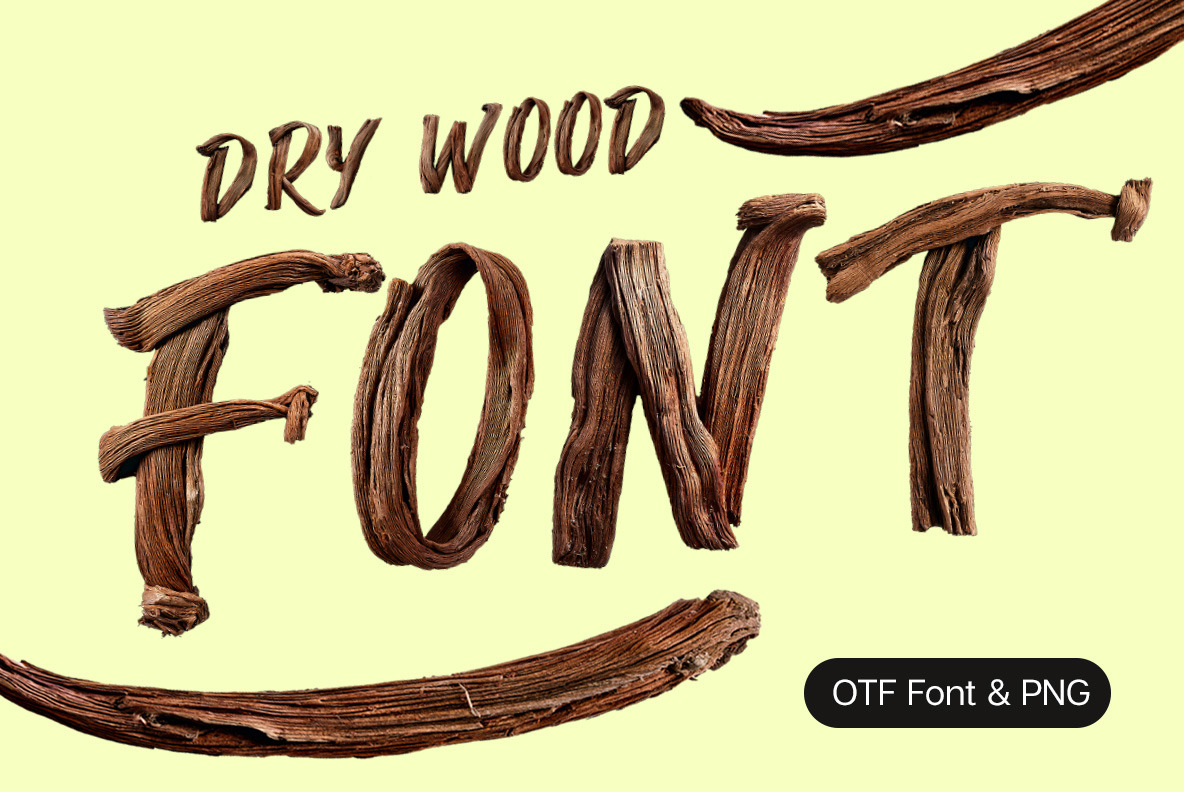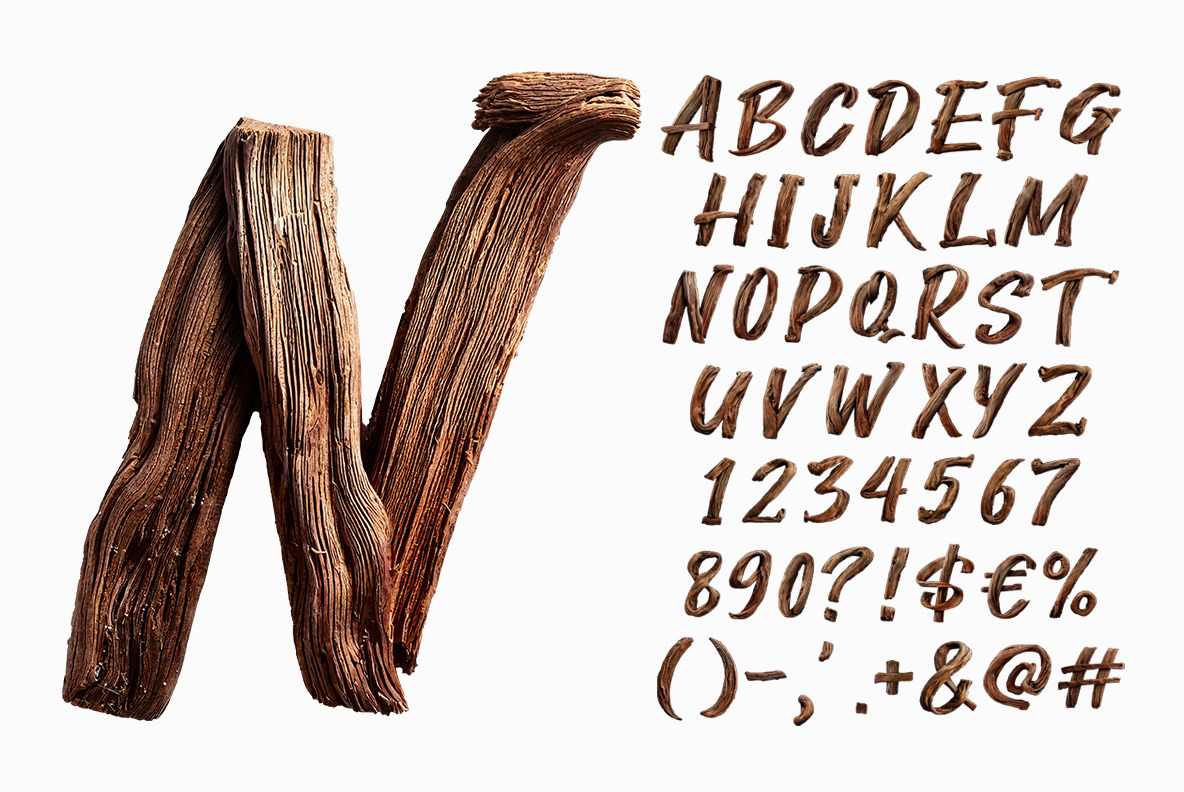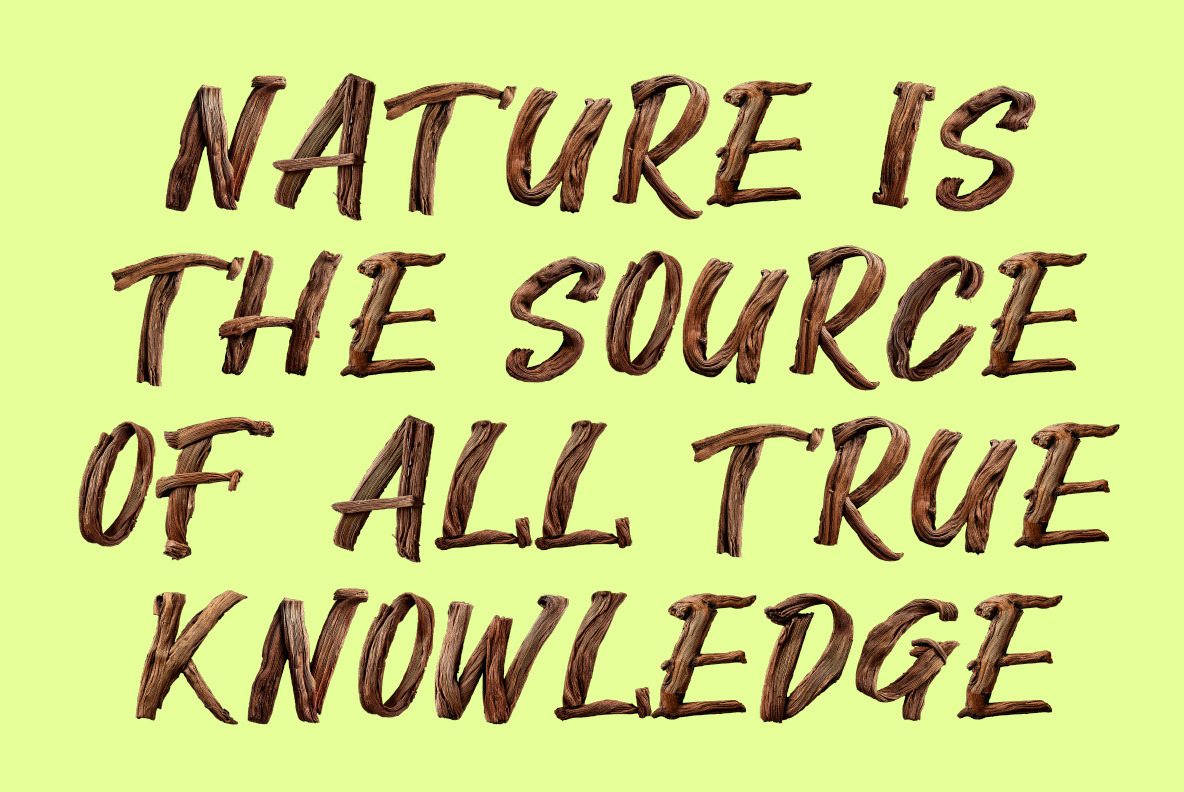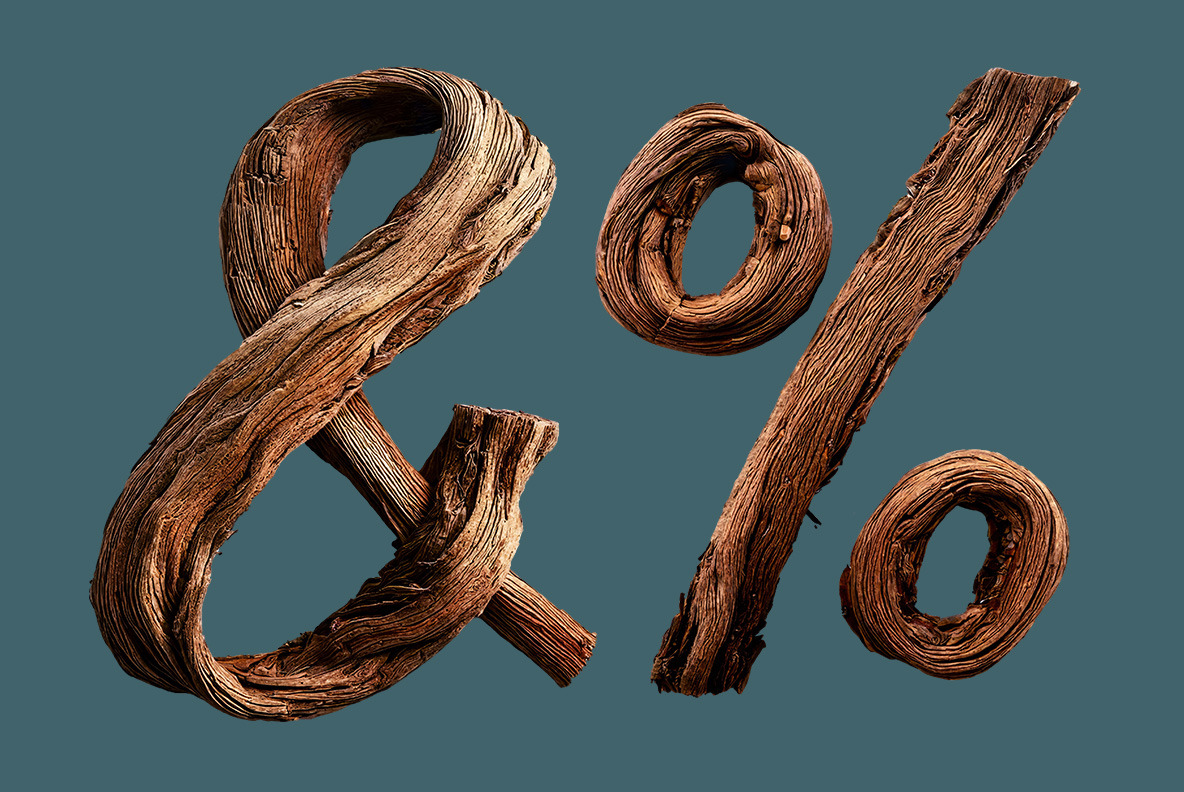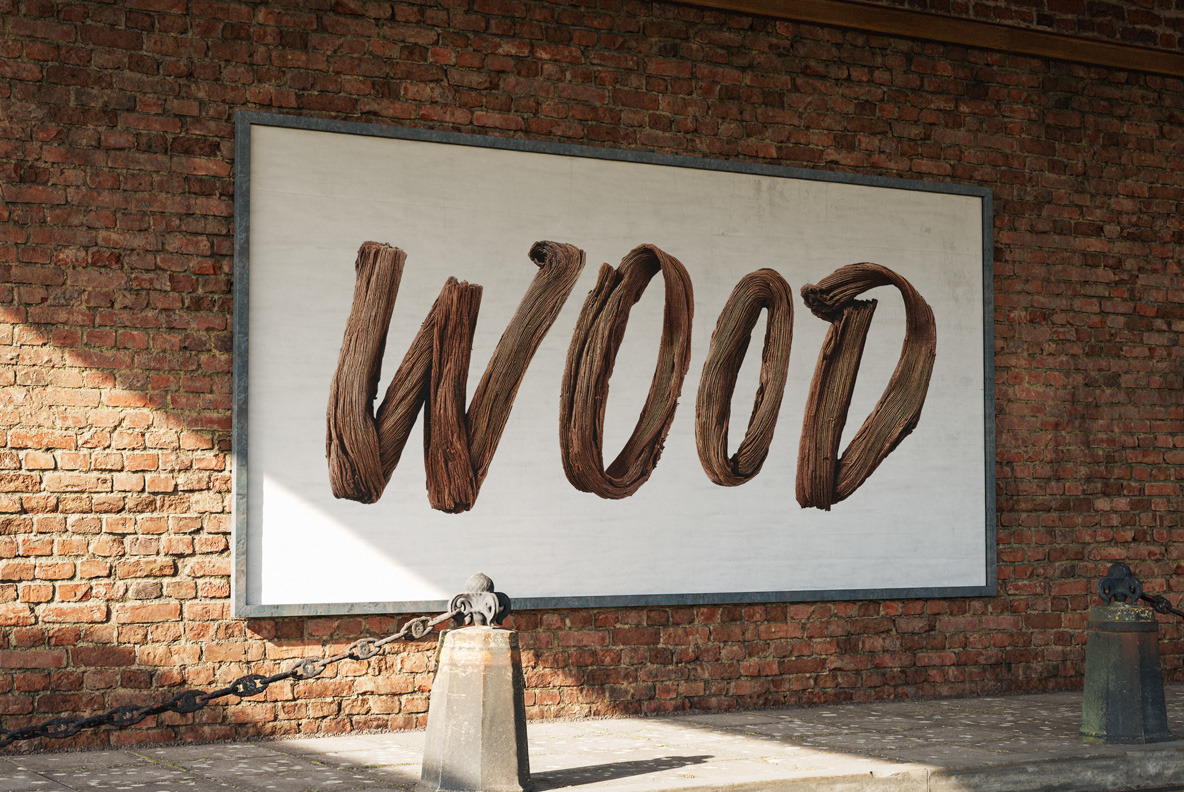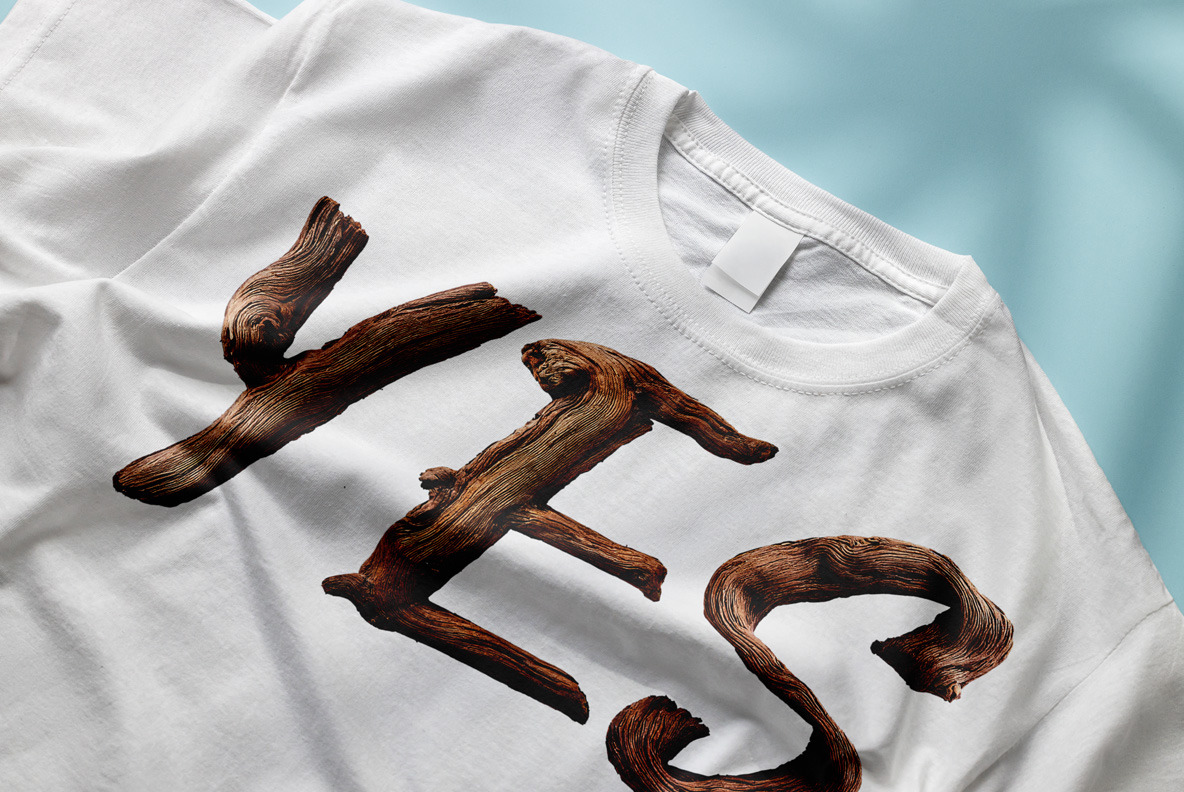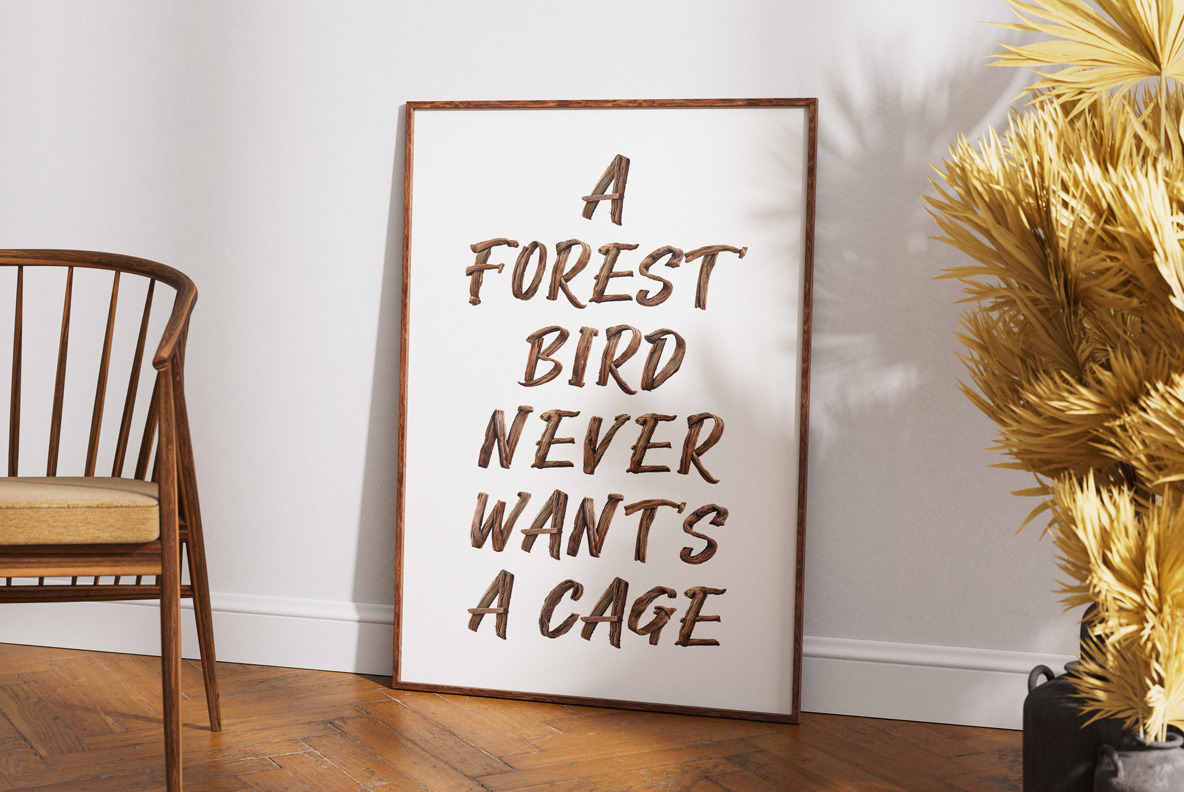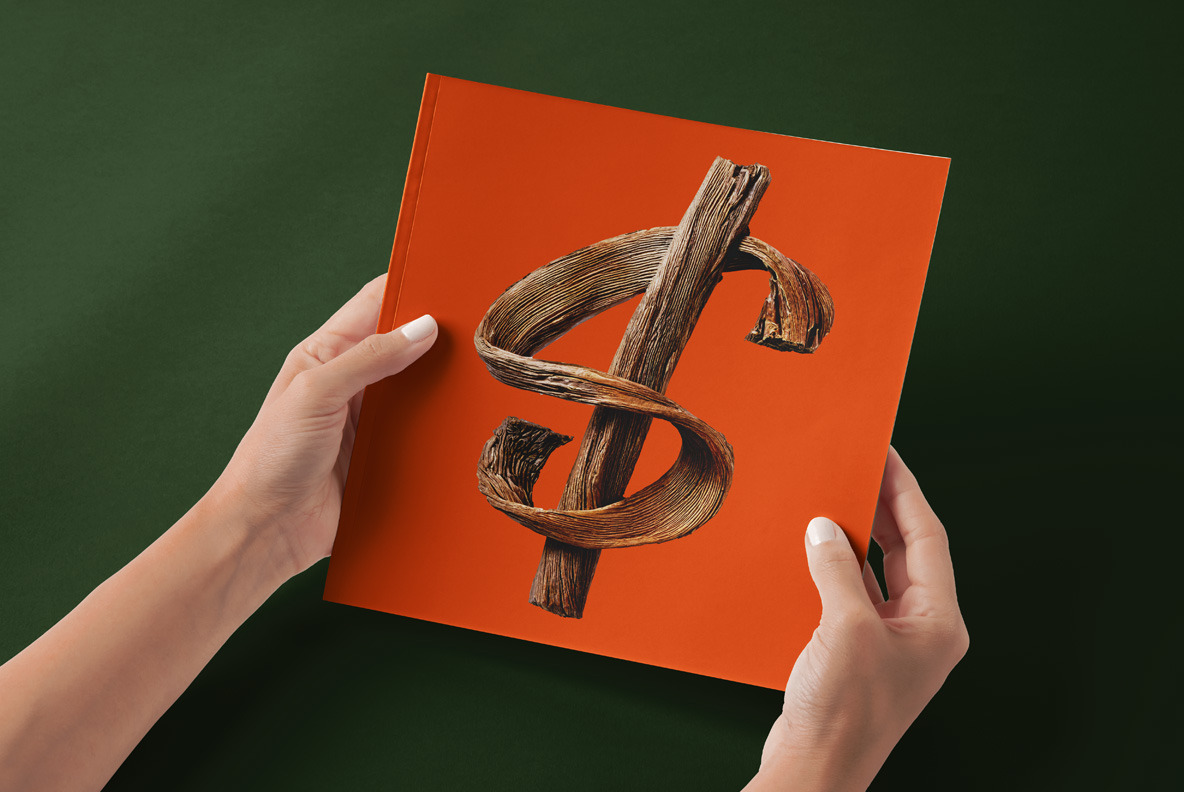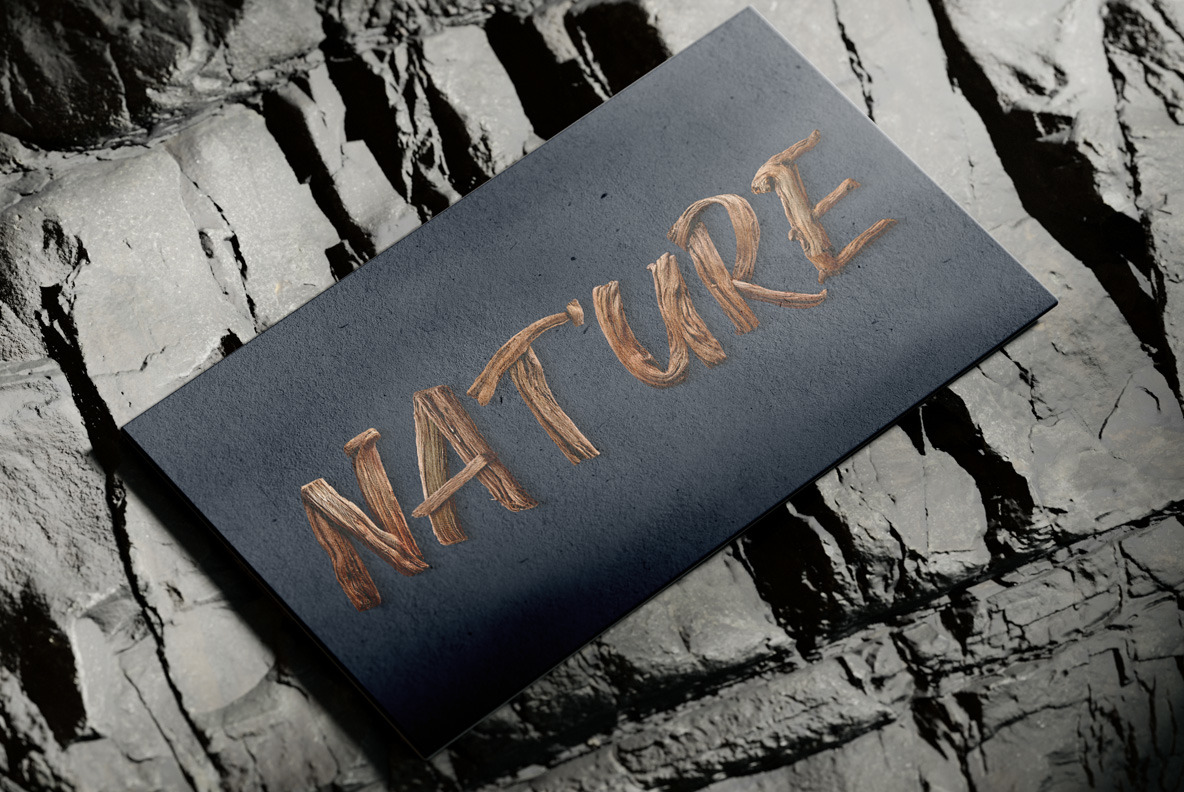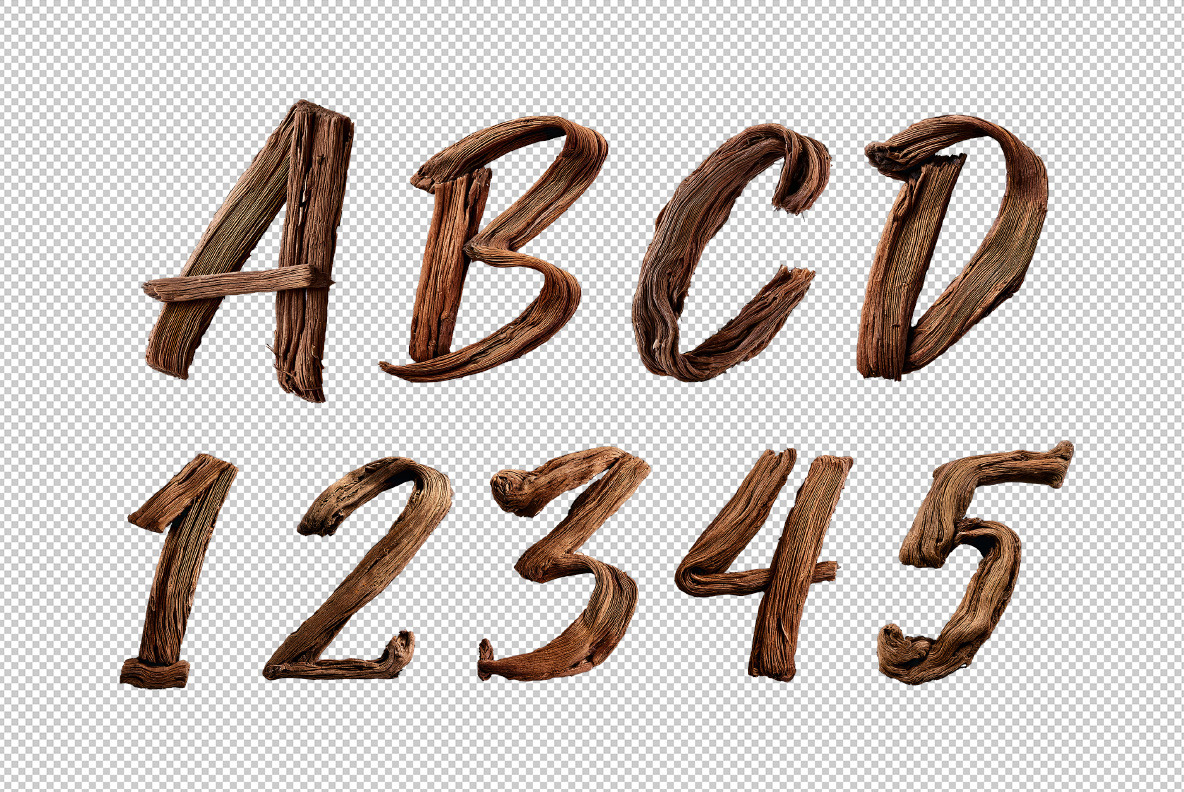
Dry Wood Font
Dry Wood Font is a rustic, handcrafted typeface inspired by the rugged texture of weathered wood. With its natural, organic feel, it's perfect for creating vintage-style designs, logos, posters, and rustic branding. This font brings warmth and character to any project with its earthy, textured look.
A high definition OpenType Font. Contains uppercase characters, numerals and basic punctuation. (Draw height roughly 800 pixels). All letters and glyphs that comprises this font you can see on the preview.